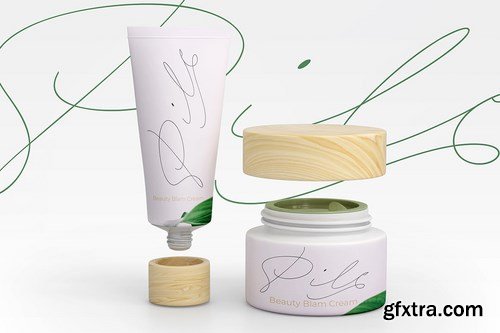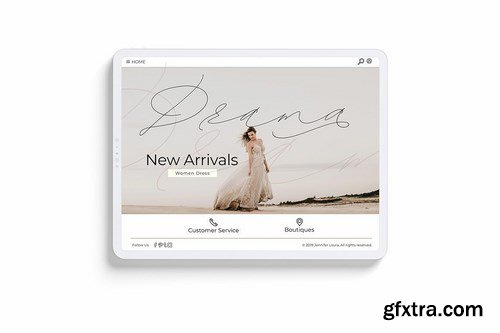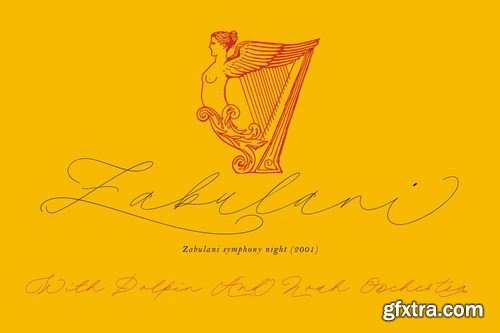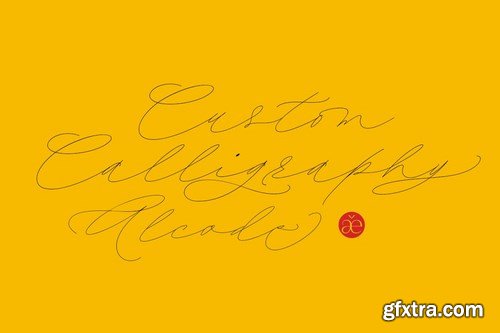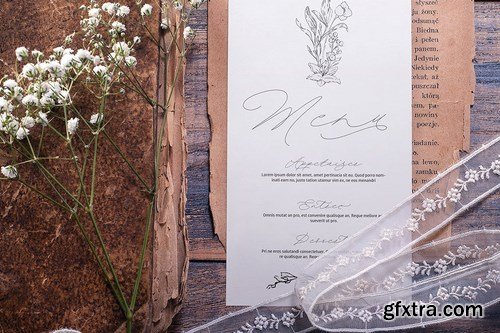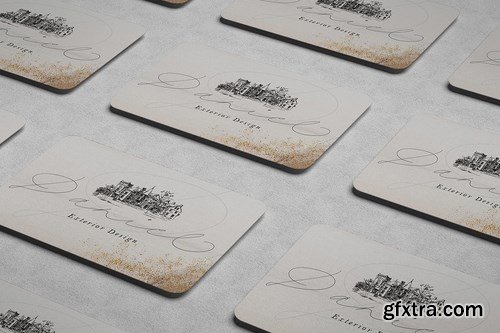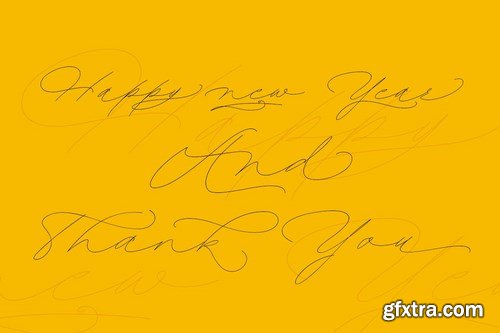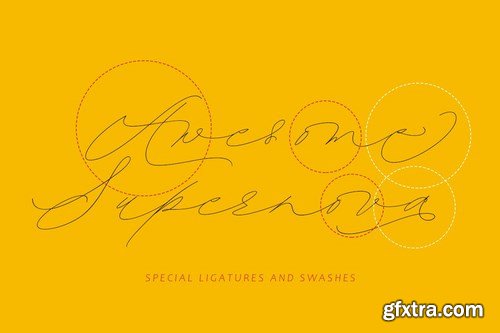
Laront Monoline OTF
- The Laront is monoline font with a classic style and a touch of elegance, inspired by the handwriting of Italian women and ancient manuscripts. Carefully designed to work together in harmony that makes it very suitable for wedding media, book covers, greeting cards, logos, branding, business cards and certificates, even for any design work that requires a classic, formal or luxurious. Try Laront, enjoy the richness of OpenType features and let her fun and elegant excitement make you happy and enhance your creativity! You can use this font very easily. Included multilingual support and special ligatures